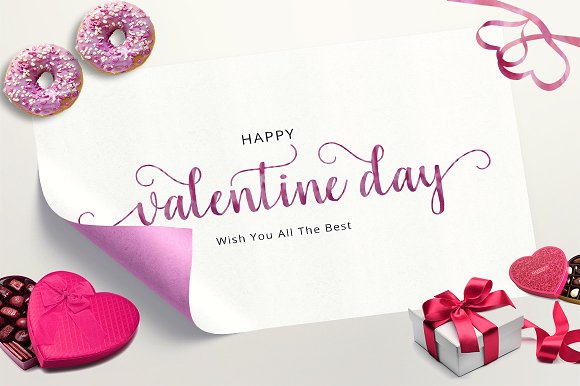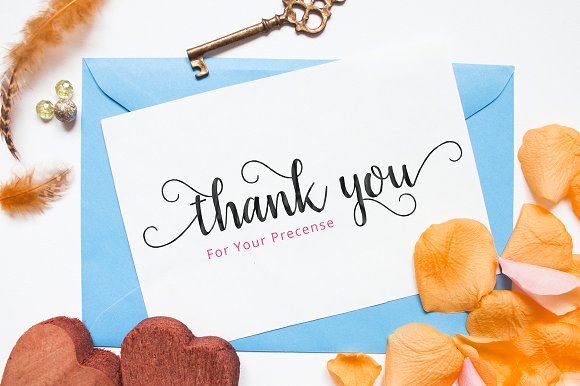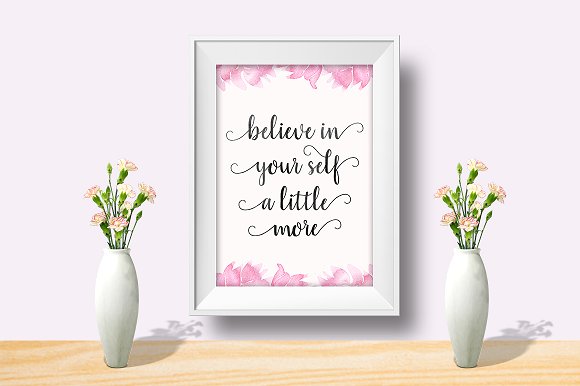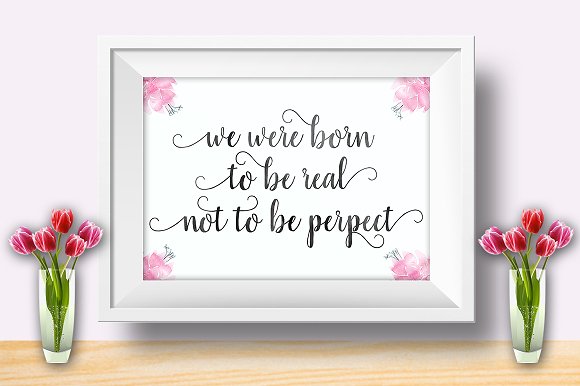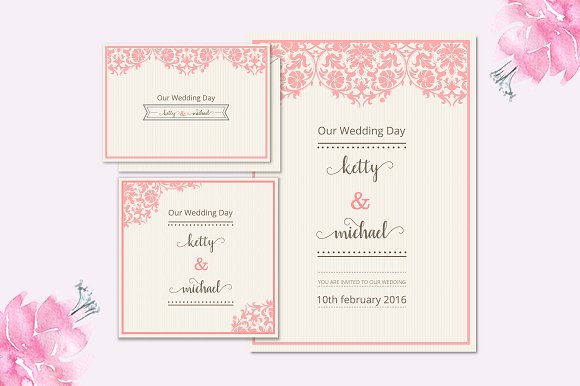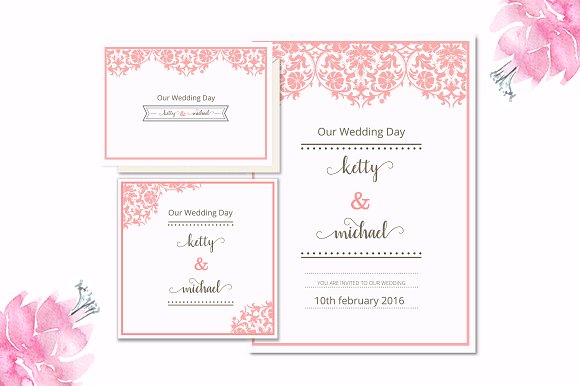
The Brightest Font: A Designer’s Dream Come True
I’ll never forget the moment I stumbled upon the Brightest Font while working on a project for a client who needed a unique, eye-catching font to make their brand stand out. I had spent hours scouring the internet for the perfect font, but nothing seemed quite right. That was until I discovered Brightest Font – a stunning PUA encoded font with over 260 unique glyphs that completely transformed my design. ✨
- ✨ Endless creative possibilities: With over 260 unique glyphs, Brightest Font offers a wide range of design options.
- 💫 Stunning visuals: The font’s unique design and PUA encoding make it perfect for creating eye-catching text.
While Brightest Font is an amazing font, there are a few things to keep in mind: ⚠️
- 🤔 Some glyphs may require manual adjustment: Due to the font’s unique design, some glyphs may need to be adjusted manually to ensure proper spacing and alignment.
The creator of Brightest Font is a renowned typographer who was inspired by the beauty of street art and graffiti. They wanted to create a font that would allow designers to add a touch of personality and whimsy to their designs. With over 260 unique glyphs, Brightest Font is the perfect tool for designers who want to add a little extra something to their work.
Q: Is Brightest Font suitable for body text?
A: While Brightest Font is a beautiful font, it’s best suited for display text and headings. Due to its unique design and PUA encoding, it may not be the best choice for body text.